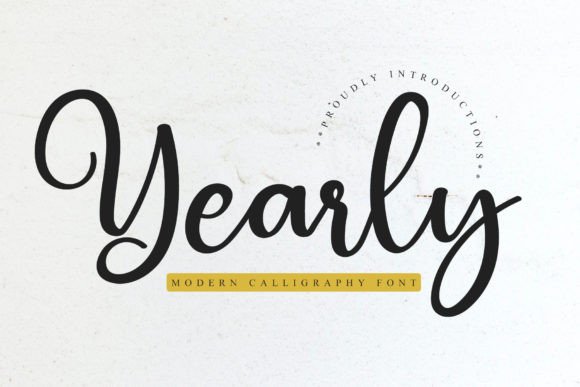
Discover Yearly Font - An Exquisite Script Font for Timeless Elegance and a Touch of Whimsy
Welcome to the realm of Yearly Font, a stunning script font crafted with grace and artistry. Its delicate curves and charming swashes exude a timeless elegance that captivates the senses.
With Yearly Font, transform your creative projects into masterpieces. Its versatility knows no bounds, making it the perfect choice for logos, branding projects, labels, photography, watermarks, special events, and all your other cherished projects.
Picture the awe-inspiring beauty of Yearly Font gracing your school logos, adding a touch of sophistication and uniqueness that sets you apart from the ordinary. Its intricately designed characters will leave a lasting impression, ensuring your message is conveyed with style and finesse.
Let Yearly Font's delicate strokes add a touch of charm to your branding projects. Create captivating designs that exude professionalism and sophistication. Its elegant curves will elevate your brand's image, making it stand out in the competitive marketplace.
Unleash your creativity with Yearly Font's versatility. Use it to create eye-catching labels that add a touch of magic to your products. Its whimsical charm will entice customers, creating an unforgettable unboxing experience that leaves them eager for more.
Capture the essence of your special moments with Yearly Font. Its enchanting characters will add a touch of elegance to your photography, transforming ordinary images into cherished memories. Let Yearly Font narrate your story, preserving your precious moments in a way that speaks to the heart.
Yearly Font is more than just a font; it's a gateway to a world of creativity and beauty. Embrace its timeless charm and let your imagination soar to new heights. Discover the endless possibilities that await with Yearly Font and create projects that leave a lasting impression.